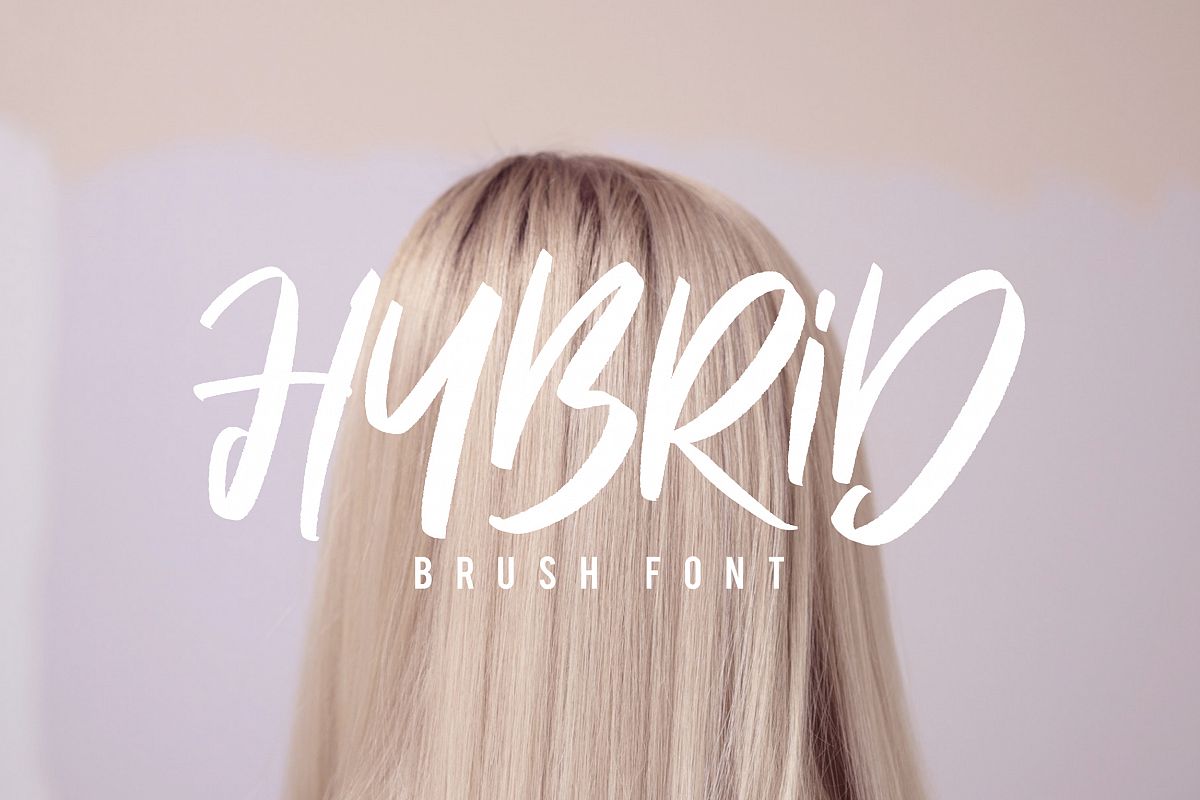
Give your designs an authentic brush handcrafted feel. "Hybrid Brush Font" is perfectly suited to signature, stationery, logo, typography quotes, magazine or book cover, website header, clothing, branding, packaging design and more. Awesome Ligatures (View in the preview)License: This font included for personal, commercial use, multiple projects, behalf of a client. Fonts may be printed on to products that are subsequently sold, websites and within website design. Graphics may be printed on to products that are subsequently sold when an effort is made to use them as part of a new design including a variation of other graphics or fonts.What include in this files: